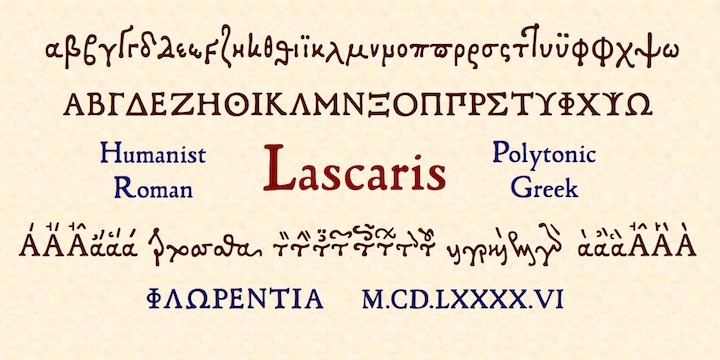
Janus Lascaris was a renowned Greek scholar who worked in Italy and later in France. Having fled Greece as a child after the fall of Constantinople, Lascaris lived in Venice and Padua, and later was invited to Florence by Lorenzo de' Medici. There, unhampered by the monopoly on the printing of Greek that Aldus Manutius had obtained in Venice, Lascaris and his colleague Lorenzo di Alopa published the first editions of many important works of classical Greek literature, including the Greek Anthology, Callimachus, four plays of Euripides, and the Argonautica of Apollonius Rhodius. In an unusual departure from custom, Lascaris chose to print the Argonautica entirely in accented Greek capitals, with the accompanying commentary (scholia) surrounding the text in Greek miniscule.